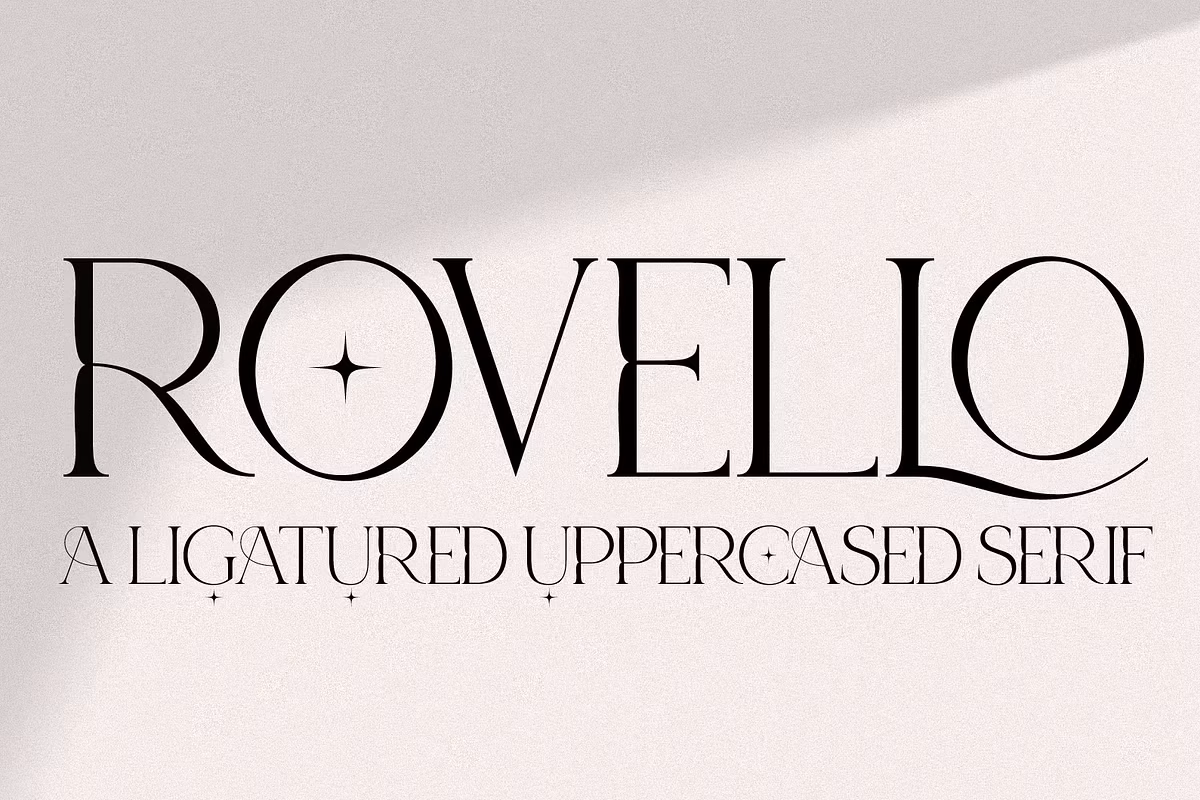
Rovello A Ligatured Rich Serif Font Free Download is an elegant and sophisticated typeface that blends classic serif style with modern ligatures. Its rich details and beautifully crafted letterforms make it ideal for high-end branding, editorial layouts, luxury packaging, and stylish logos. The unique ligatures add a special touch to your typography, making it stand out with charm and personality.
Whether you're creating a premium brand identity, designing an editorial spread, or crafting luxury product packaging, Rovello A adds sophistication and style to your typography. It’s the perfect font for designers looking for a rich, timeless serif with a modern twist.